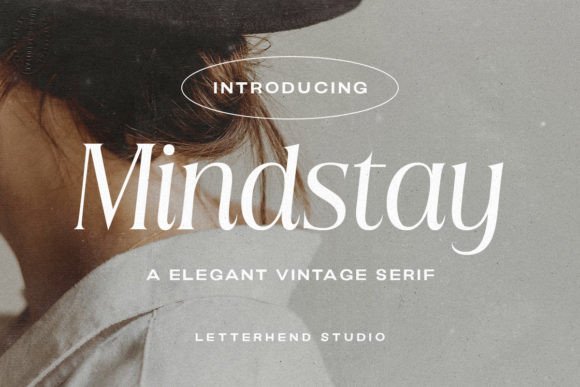
Introducing Mindstay, the epitome of timeless charm and elegance. This vintage serif font, created by letterhend, is the perfect choice for those seeking the best fonts for classic menus. With its clean lines and meticulous attention to detail, Mindstay captures the essence of classic typography, offering a chic and sophisticated touch to any project.
Immerse yourself in the world of nostalgia and grace as Mindstay's meticulously crafted serifs and distinctive letterforms transport your designs to a bygone era. Whether you're designing a vintage-inspired logo, a retro-themed poster, or an elegant typographic composition, Mindstay will elevate your creativity to new heights.
Picture your restaurant's menu exuding an aura of class and elegance with Mindstay. Its captivating design will entice your customers and leave a lasting impression of sophistication. The carefully chosen letterforms lend a touch of refinement to your menu, making it a feast for the eyes.
Stand out from the crowd and make a statement with Mindstay. The emotional connection it creates through its vintage charm will captivate your audience and give your project a unique edge. Its versatility allows it to effortlessly adapt to any design concept, ensuring that your creations are truly one-of-a-kind.
Unlock a world of possibilities with Mindstay. From wedding invitations to branding materials, this font adds a touch of nostalgia and sophistication to every project. Let Mindstay be your creative companion, guiding you to create stunning visuals that evoke a sense of timeless beauty.